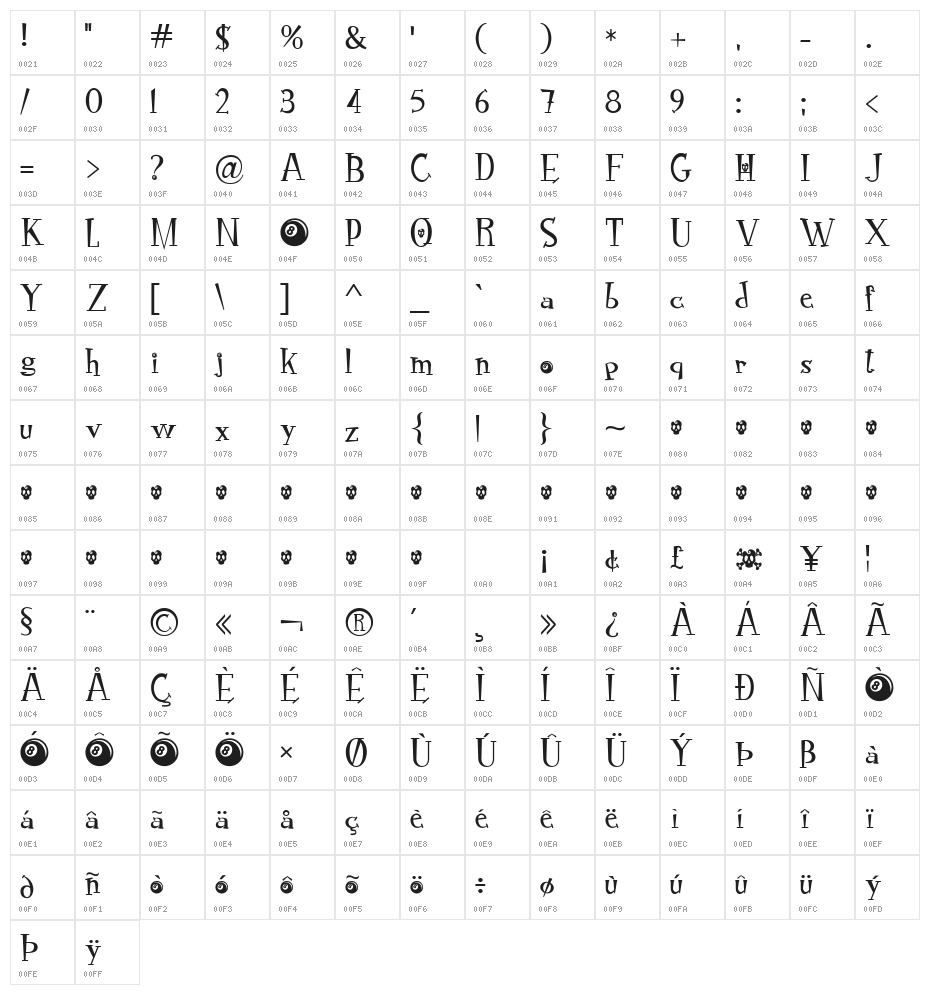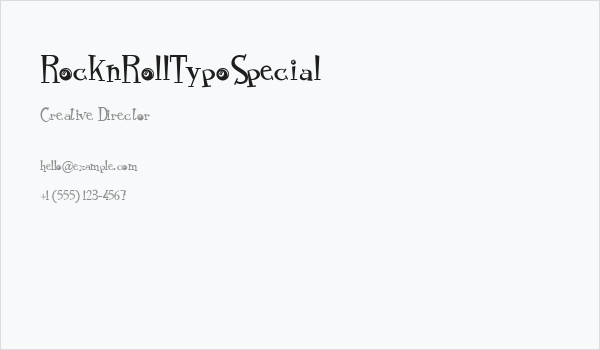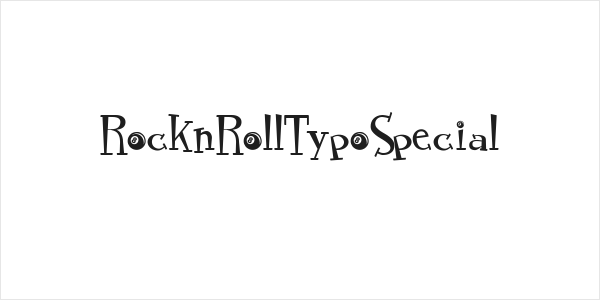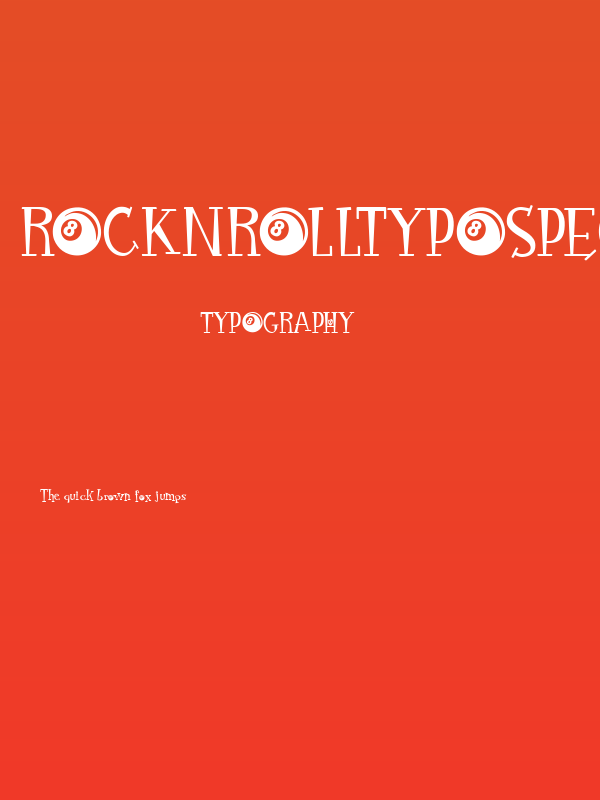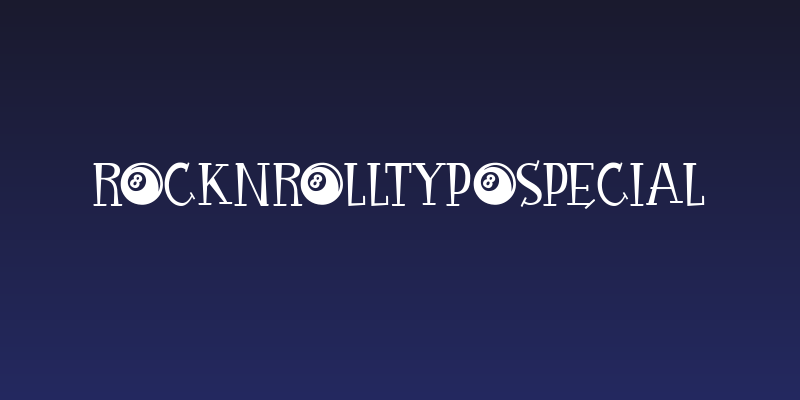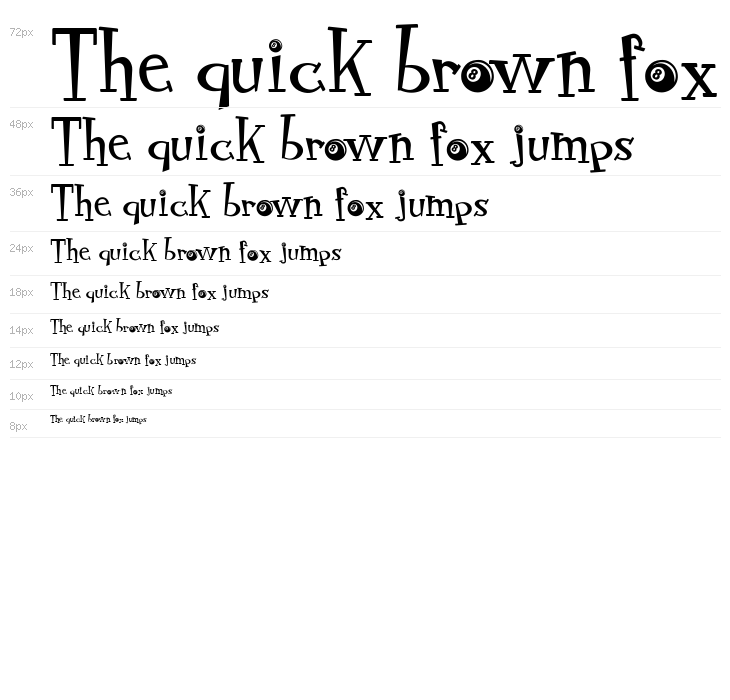
RocknRollTypoSpecial Font
RocknRollTypoSpecial Description
This playful and quirky font features a unique blend of whimsical elements and bold strokes. The uppercase letters are characterized by their tall, slightly irregular forms, with some letters incorporating fun, eye-catching details like spirals or dots. The lowercase letters maintain this playful aesthetic, with varying heights and unexpected curves that add to the font's charm. Numbers and special characters follow suit, offering a consistent yet lively appearance. This font is perfect for projects that require a touch of humor and creativity, making it ideal for children's books, playful branding, or event posters.
| Proposed Projects | Children's books, playful branding, event posters, creative invitations. |